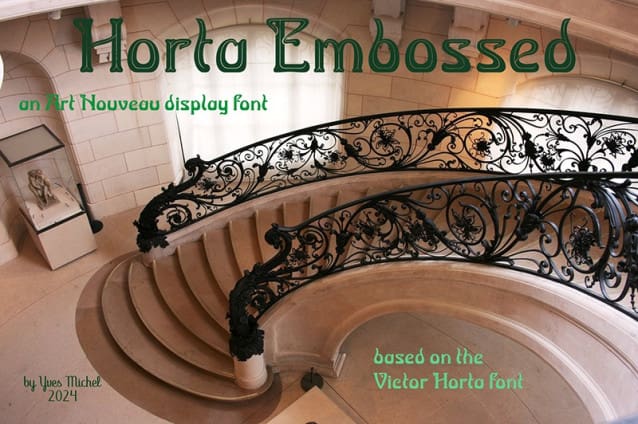
Horta Embossed Font
Horta Embossed Font: The period around 1900 produced the Impressionists in painting and Art Nouveau in architecture and graphic design. I have always admired the Arnold Boecklin typeface, which is a remarkable illustration of this era.
So I wanted to create a font in this spirit, without falling into copying or imitating it too easily. I named it “Victor Horta”, in tribute to our great Belgian architect, a disciple of Eugène Viollet-le-Duc, a precursor of Art Nouveau. The present derived font is “Horta Embossed”.